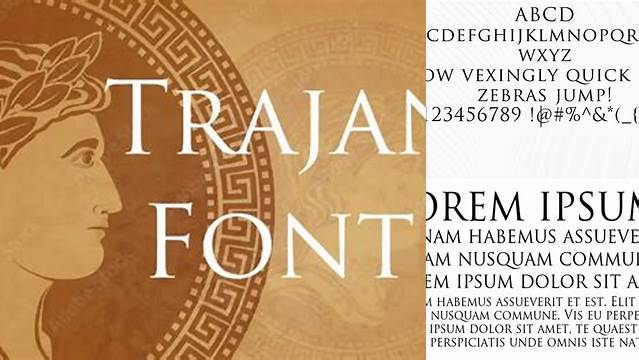
Trajan Font: Your Guide To Commercial Use
Introduction: Unveiling the Elegance of Trajan
Hey guys! Ever stumbled upon a font and thought, "Wow, that's just... classic?" Well, if you're into the world of design, you've probably crossed paths with Trajan. This font isn't just popular; it's an icon. Its roots trace back to the inscription on Trajan's Column in Rome, making it a timeless choice for various design projects. But here's the kicker: is Trajan available for commercial use, and where can you get it? Let's dive in and break down everything you need to know about this elegant typeface.
Trajan, with its distinctive serifs and elegant letterforms, has become a go-to for everything from movie posters to book covers. Its enduring appeal lies in its ability to convey a sense of gravitas and sophistication. It's a font that speaks volumes without saying a word. Its simplicity and readability make it perfect for headlines and short blocks of text, making sure your message gets across loud and clear. Choosing the right font can make or break your project, and Trajan is often the right choice, bringing a touch of history and refinement to whatever it graces.
2. Adobe Fonts (formerly Typekit): If you're an Adobe Creative Cloud subscriber, you have access to Adobe Fonts, which is a massive library of fonts, including various versions of Trajan. Adobe Fonts typically offers licenses that cover both personal and commercial use. It's a fantastic resource, especially if you're already using Adobe software. It's super convenient, integrating seamlessly with your design workflow. This is a great option for those already invested in the Adobe ecosystem, providing quality fonts and a straightforward licensing process.
3. Other Font Distributors: There are many other font foundries and distributors where you can purchase fonts. Websites such as MyFonts, Fontspring, and Creative Market often have a variety of Trajan fonts available. These sites usually offer different licensing options, so you can choose the one that best fits your needs. Be sure to carefully review the license terms before purchasing. Different licenses may allow for different uses, so check those details. Make sure the license covers the intended commercial use of the font.
4. Free Font Websites: Be cautious with free font websites. While some websites offer free versions of Trajan or similar fonts, always make sure the license allows for commercial use. Read the license agreement carefully to ensure that you are not violating any terms. If the licensing terms aren't clear or are ambiguous, it's best to avoid using the font for commercial purposes. Always make sure you have the right permissions before using the font.
By understanding the licensing requirements, following best practices, and using it wisely, you can create stunning and effective designs that showcase the timeless elegance of Trajan. Embrace its beauty, use it ethically, and let your designs make a statement. This is a great font to add to your toolkit. It is a great option for your projects. Now go create something amazing!